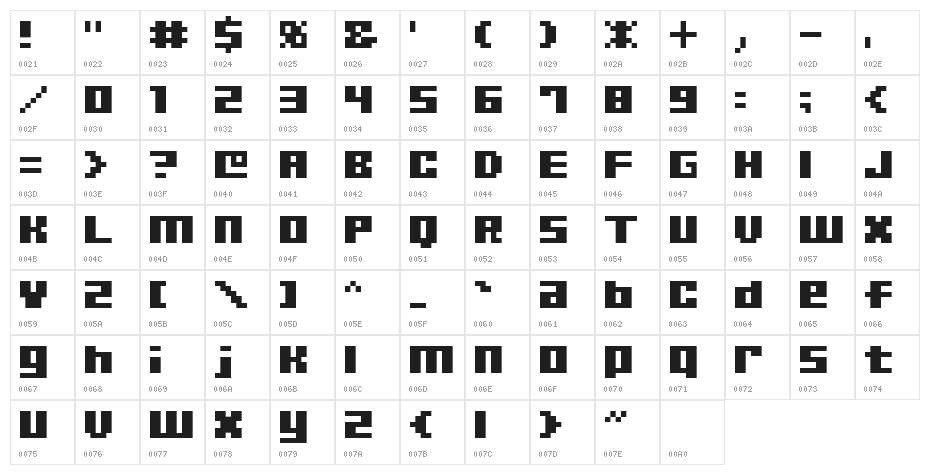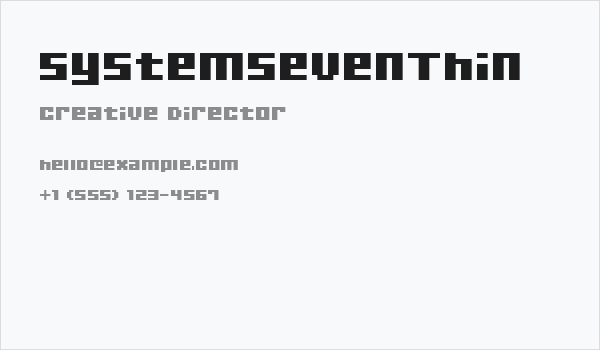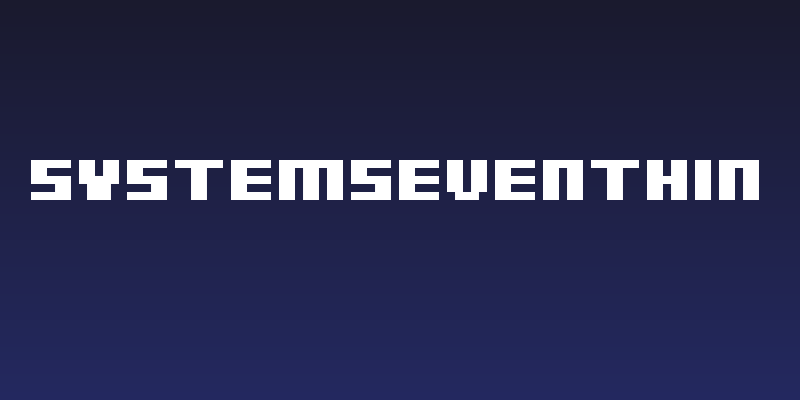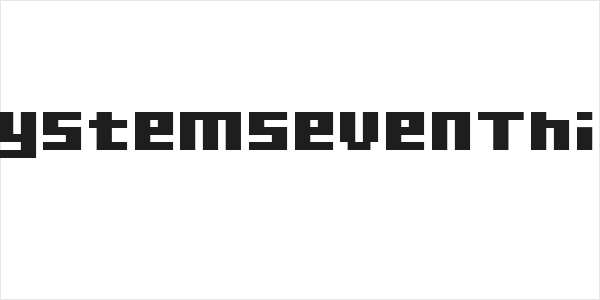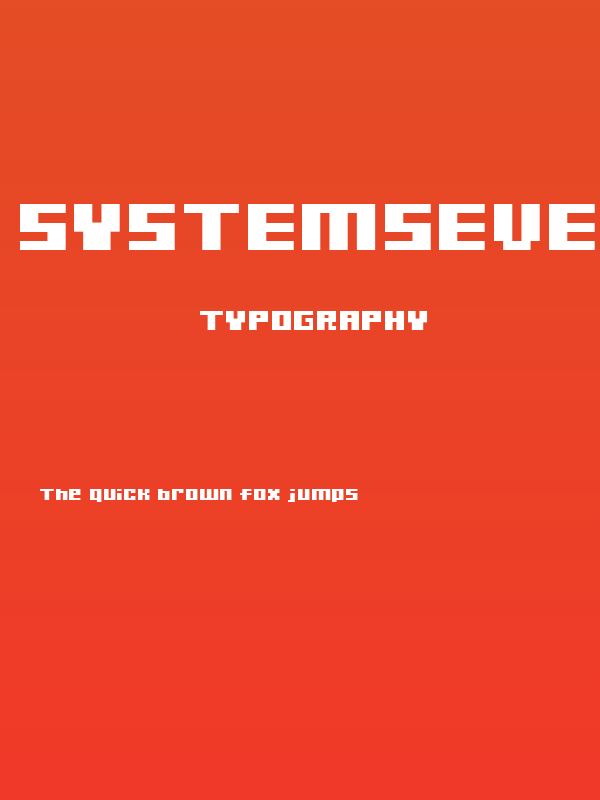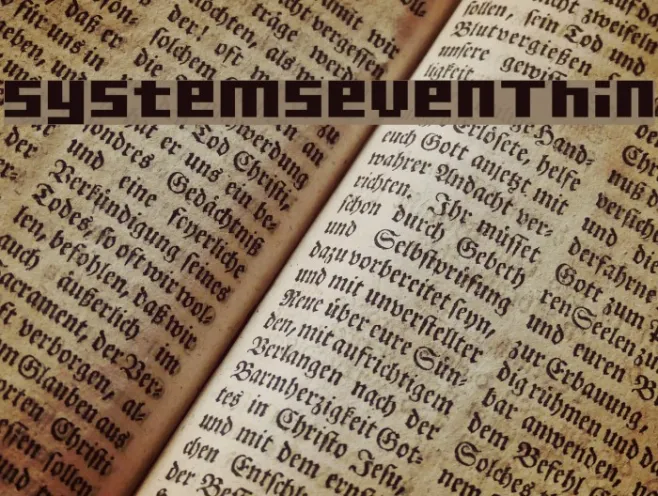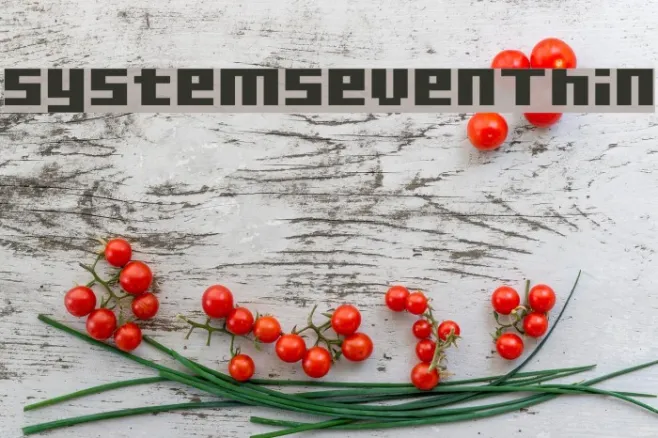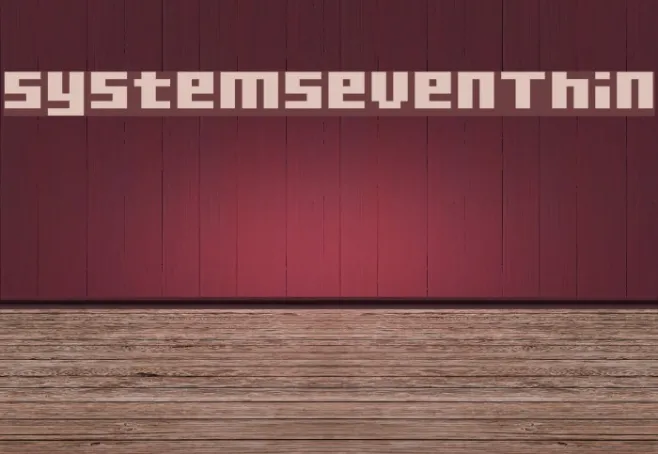
SystemSevenThin Font
SystemSevenThin Description
This font features a bold, blocky design with a distinctly digital or pixelated aesthetic. The characters are uniformly thick, creating a strong visual impact with a modern, tech-inspired feel. The uppercase and lowercase letters maintain a consistent width, contributing to a cohesive appearance. The numerals and special characters follow the same geometric style, enhancing the font's uniformity. This design is reminiscent of early computer graphics, making it ideal for projects that require a retro or digital theme. The font's simplicity and clarity ensure readability, even at smaller sizes.
| Proposed Projects | Ideal for video game graphics, tech-themed posters, digital art, and retro-style branding. |